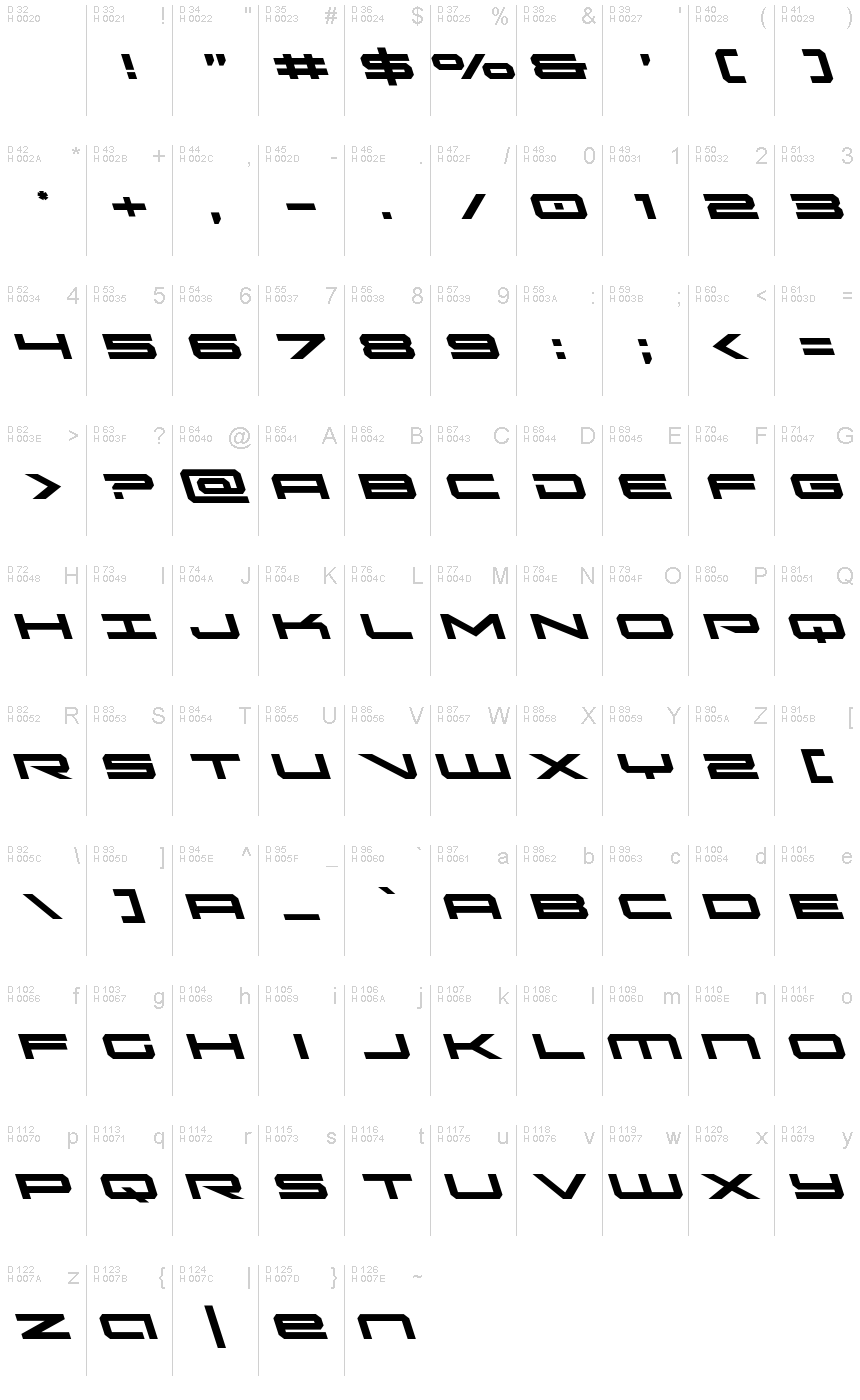
Oramac Leftalic
Oramac Leftalic is a striking, futuristic display font that commands attention. The expanded letterforms and bold, angular lines convey a sense of technological sophistication and progressive design. This font's distinct character lends itself exceptionally well to bold headings, product branding, and editorial layouts that seek to evoke a sleek, modern aesthetic. Its expansive width ensures maximum visual impact, making it an ideal choice for attention-grabbing headlines and eye-catching typographic treatments.
Oramac Leftalic's futuristic flair and distinctive style make it a versatile tool for designers exploring cutting-edge, forward-thinking design concepts.